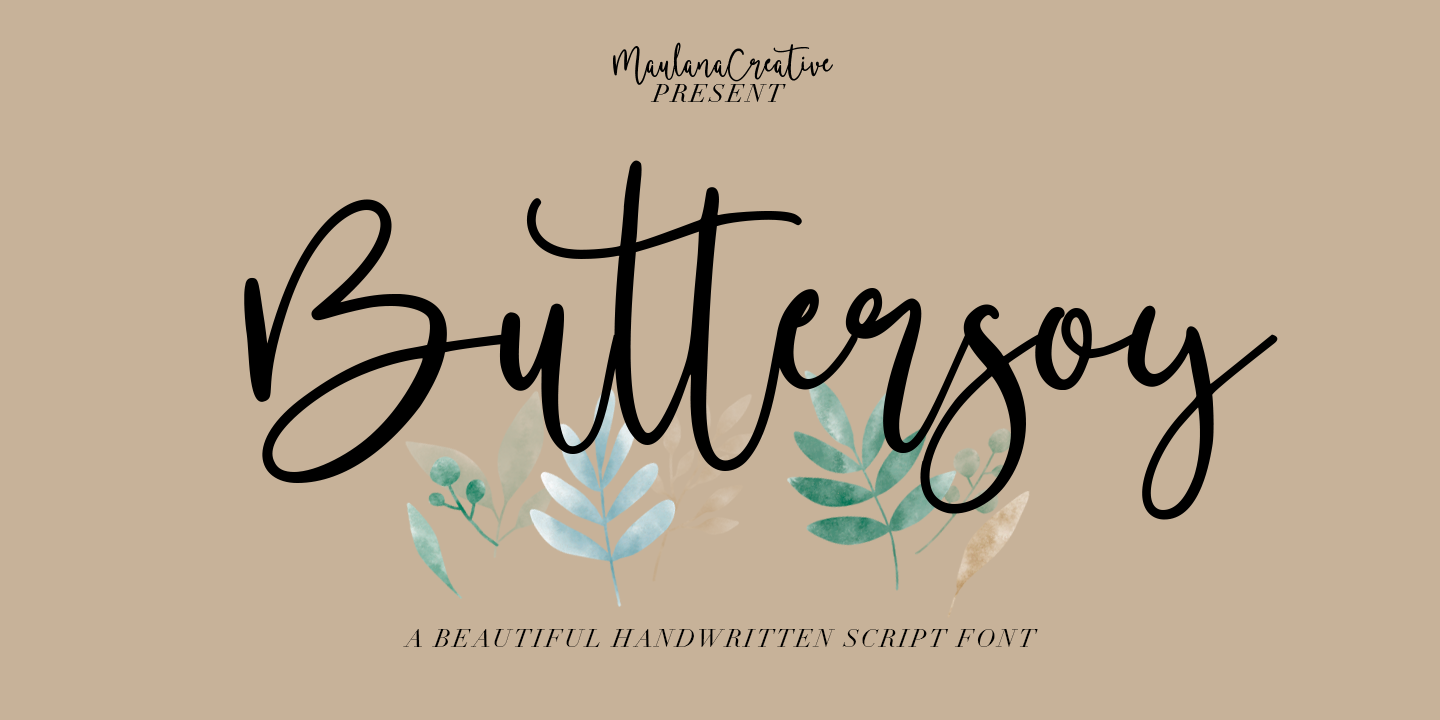
Buttersoy Font is perfect for organic food branding, vegan restaurant menus, healthy lifestyle promotions, natural cooking publications, plant-based product packaging, wellness center materials, sustainable agriculture campaigns, and wholesome culinary communications.
This warm script typeface is exciting because it captures the smooth richness and natural goodness of traditional butter combined with the healthy versatility of soy through flowing letterforms that evoke comfort food reimagined for conscious living.
The Buttersoy Font family includes regular and bold weights with organic alternates, natural decorative elements, and wholesome flourishes that enhance the healthy, satisfying atmosphere of any plant-based culinary design project.
Wholesome and satisfying, Buttersoy Font Free Download brings the comfort and natural goodness of healthy cooking to contemporary typography through authentic plant-based character. This nourishing font embodies the innovation and care required to create satisfying alternatives that honor traditional flavors while supporting healthy living, making it perfect for food brands that understand conscious eating doesn't mean sacrificing taste or comfort. Its smooth character reflects the careful development and natural richness that makes plant-based alternatives genuinely satisfying and the growing awareness that healthy choices can be both delicious and environmentally responsible, resonating with consumers who appreciate innovation in sustainable food options. Perfect for vegan restaurants and health food companies, this font ensures your message carries the wholesome authenticity and natural credibility that health-conscious consumers seek. Whether used for plant-based product labels or organic cooking guides, Buttersoy Font Free Download delivers the natural satisfaction and healthy appeal that connects with people committed to making food choices that support both personal wellness and environmental sustainability through delicious alternatives that honor traditional comfort while embracing conscious living.